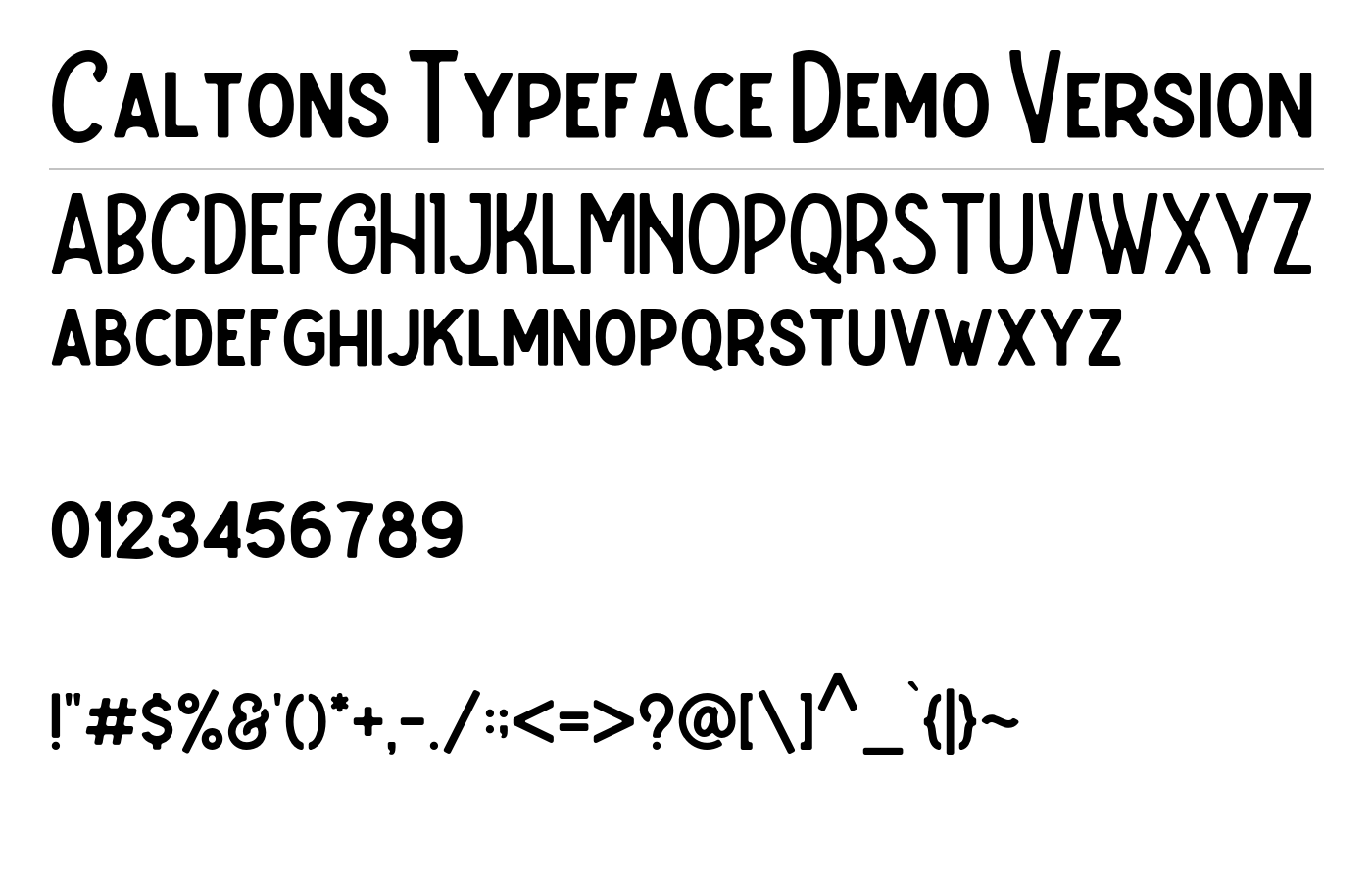
Caltons Typeface Demo Version is a playful and modern sans serif font with a slightly condensed width and medium weight, featuring a smooth, hand-drawn stroke style that gives it a friendly and approachable feel. Its unique letterforms, such as the curved tails on the Q and irregular shapes on characters like R and G, add charm and personality, making it ideal for creative branding, casual headlines, and fun editorial projects. This font works best where a warm, informal vibe is desired, adding a distinct and engaging touch without sacrificing readability.
Caltons Typeface Demo Version Font
About Caltons Typeface Demo Version Font